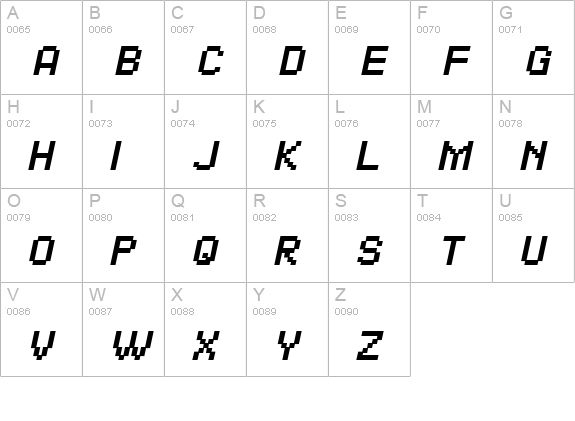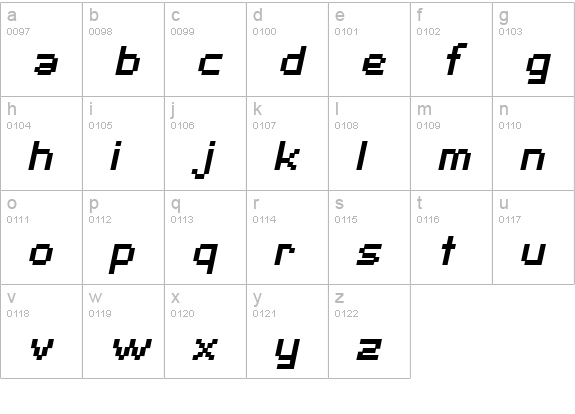
SF Pixelate Bold Oblique Font Details
SF Pixelate Bold Oblique is a strong, high-contrast, italic variant in the SF typeface family \xE2\x80\x94 well suited to headlines, attention-grabbing titles, and strong calls-to-action.
The SF Pixelate Bold Oblique font is a versatile and eye-catching typeface that is perfect for adding a touch of modernity and style to any design project. With its bold and oblique letterforms, this font exudes a sense of confidence and energy. The SF Pixelate Bold Oblique font is designed with attention to detail, ensuring that each character is perfectly balanced and visually appealing. Its pixelated style adds a unique and contemporary twist, making it ideal for digital designs, logos, headlines, and more. One of the best things about the SF Pixelate Bold Oblique font is that it is available for free! Yes, you read that right. This incredible font can be freely downloaded at FontsMarket.com, allowing you to enhance your creations without any cost. Whether you are a professional designer or a hobbyist, the SF Pixelate Bold Oblique font is a must-have in your font collection. Its bold and oblique nature brings a sense of dynamism and excitement to any project, making it stand out from the crowd. So why wait? Experience the creativity and versatility of the SF Pixelate Bold Oblique font today by downloading it for free at FontsMarket.com. Unleash your imagination and let this font take your designs to new heights.